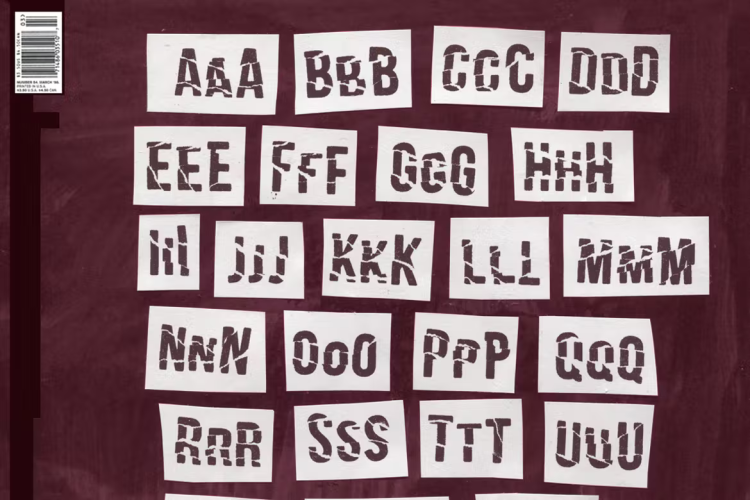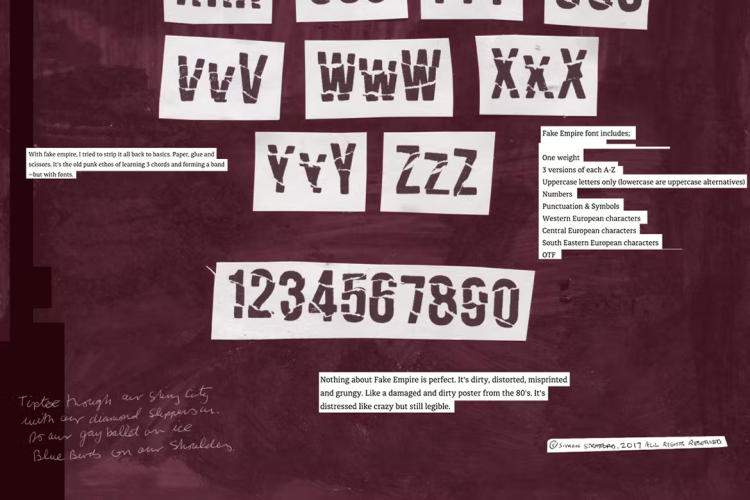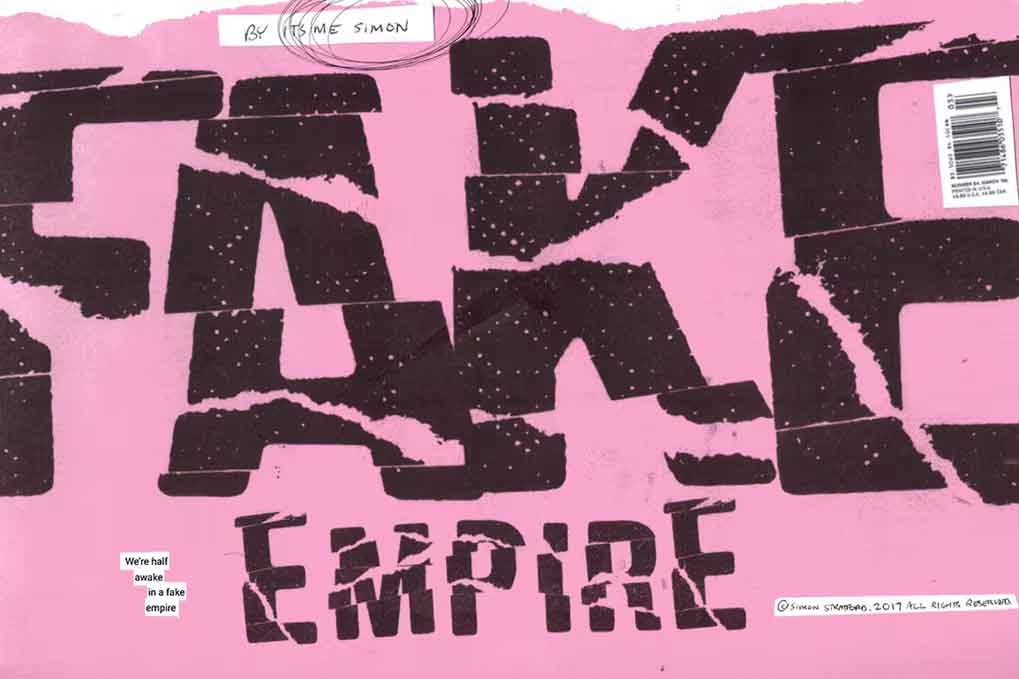
Fake Empire Font
A man far cleverer than me once said that we strive for excellence when mediocrity will do. That pretty much sums up my new font called Fake Empire. Using nothing more t…
A man far cleverer than me once said that we strive for excellence when mediocrity will do.
That pretty much sums up my new font called Fake Empire.
Using nothing more than paper, glue and scissors, I’ve stripped it back to the basics—getting my hands dirty in the process.
Fake Empire is not perfect. It’s faulty, flawed and defective. It celebrates the fact that its crude, dirty and damaged goods.
The font is highly detailed and is best suited for headlines and display.